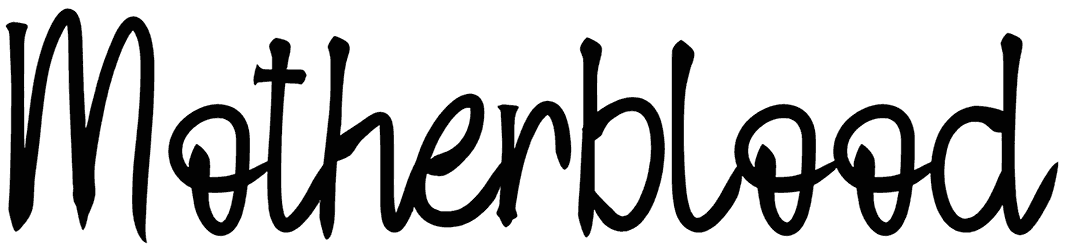
Motherblood Font
If you feel like your typography design can do a lot better with a script font, then you should give Motherblood a try. With thin letters and a sort of handwriting effect, this font gives your content a personal look that you would enjoy.
You are not gonna find numbers or punctuation marks in this collection, but the remaining will help you to create some amazing gift cards, posters, birthday cake writings, etc.